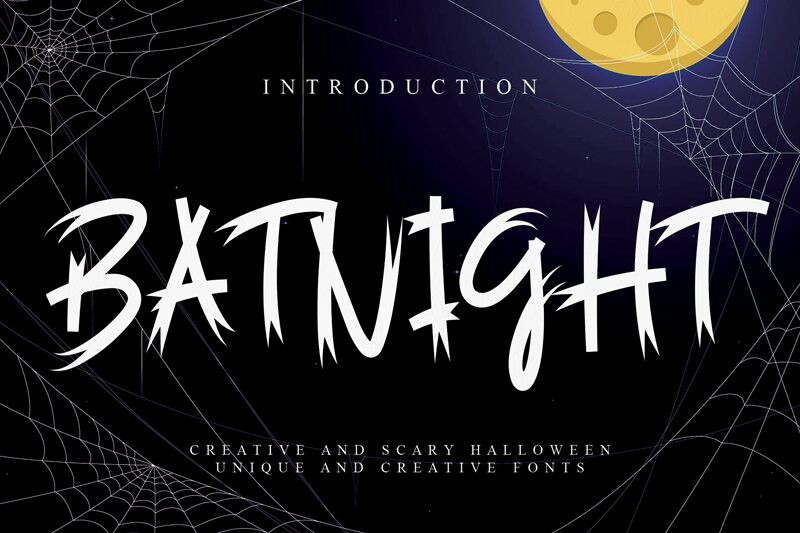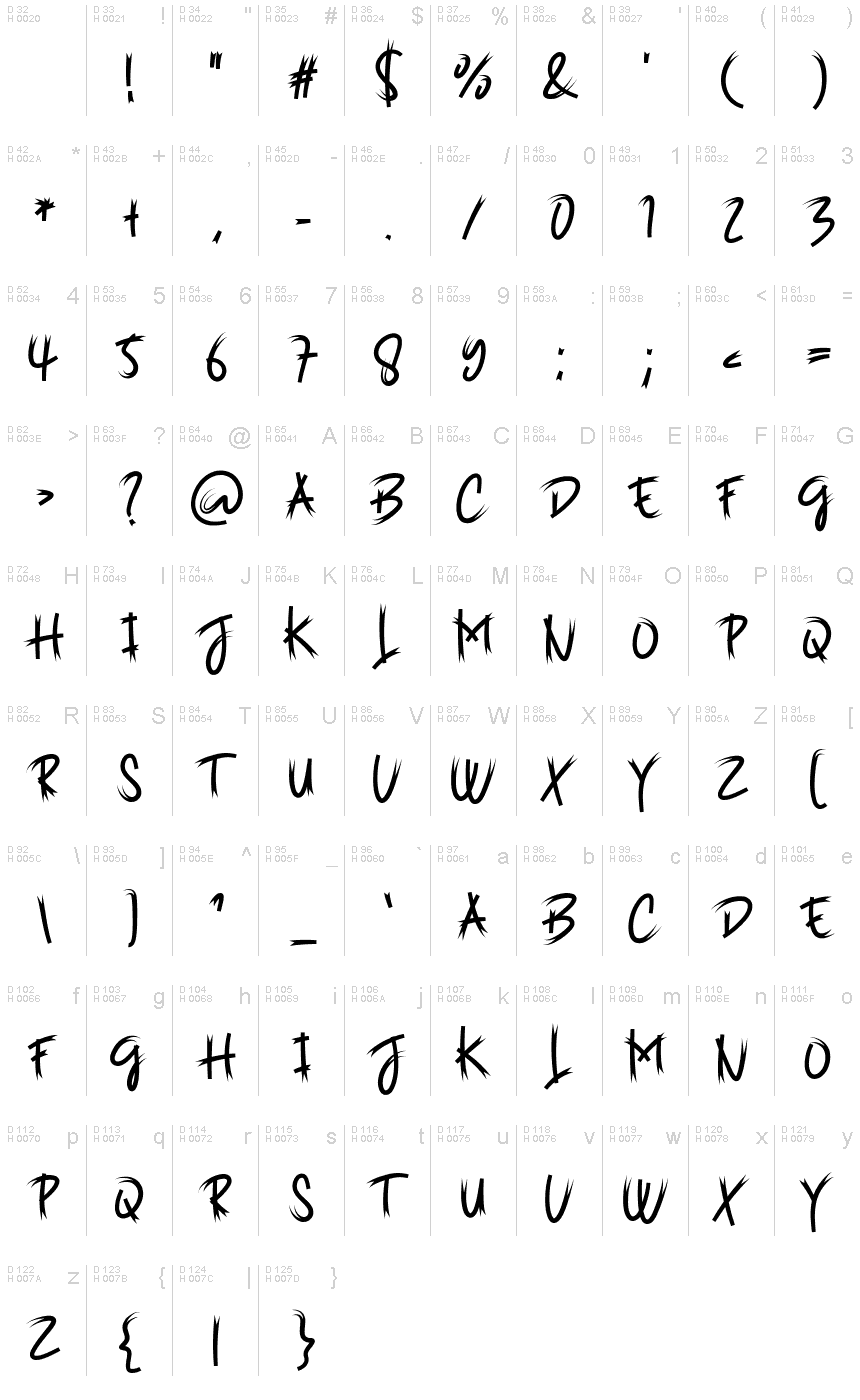
Batnight
Batnight font is a scary Halloween-style typeface designed by Gado Gado.
the latest style letters are perfect for wall displays, wedding invitations, social media post logos,
advertisements, product packaging, product designs, labels, photography, watermarks, invitations, stationery,
and any project that requires taste handwriting.